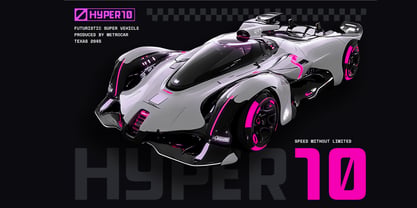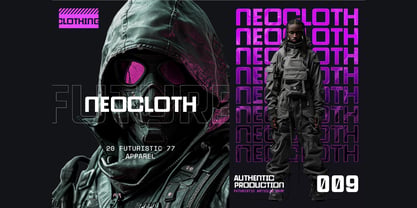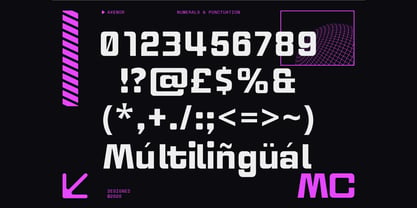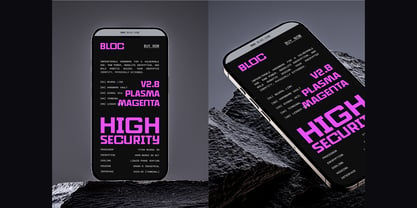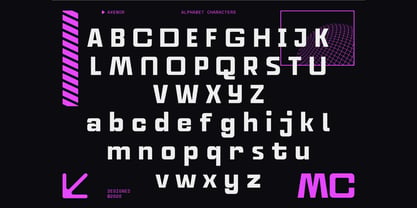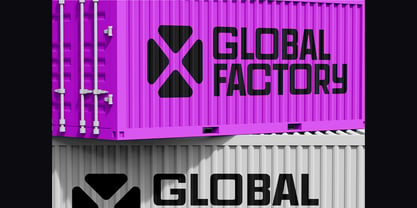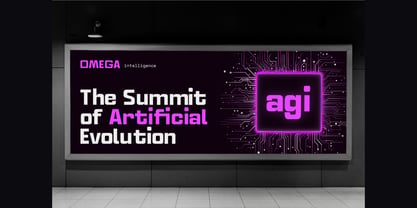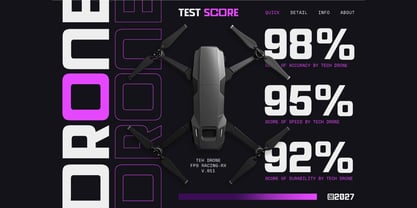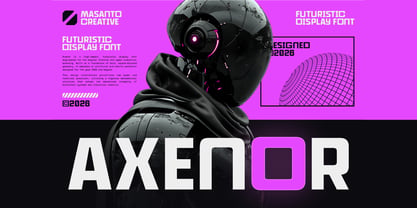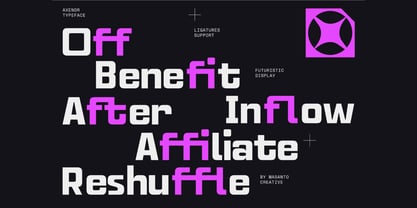
Axenor
Axenor is a bold futuristic display font inspired by cyberpunk aesthetics, AI technology, robotics, and modern industrial design. Perfect for tech branding, gaming titles, posters, UI design, automotive concepts, and sci-fi visuals. Axenor is a high-impact futuristic display typeface engineered for next-generation digital branding. Built with bold geometric construction, sharp terminals, and modern industrial proportions, this font delivers a strong cyberpunk and tech-driven personality. Designed for 2026 and beyond, Axenor blends robotic precision with contemporary display typography — making it perfect for cutting-edge visual projects.